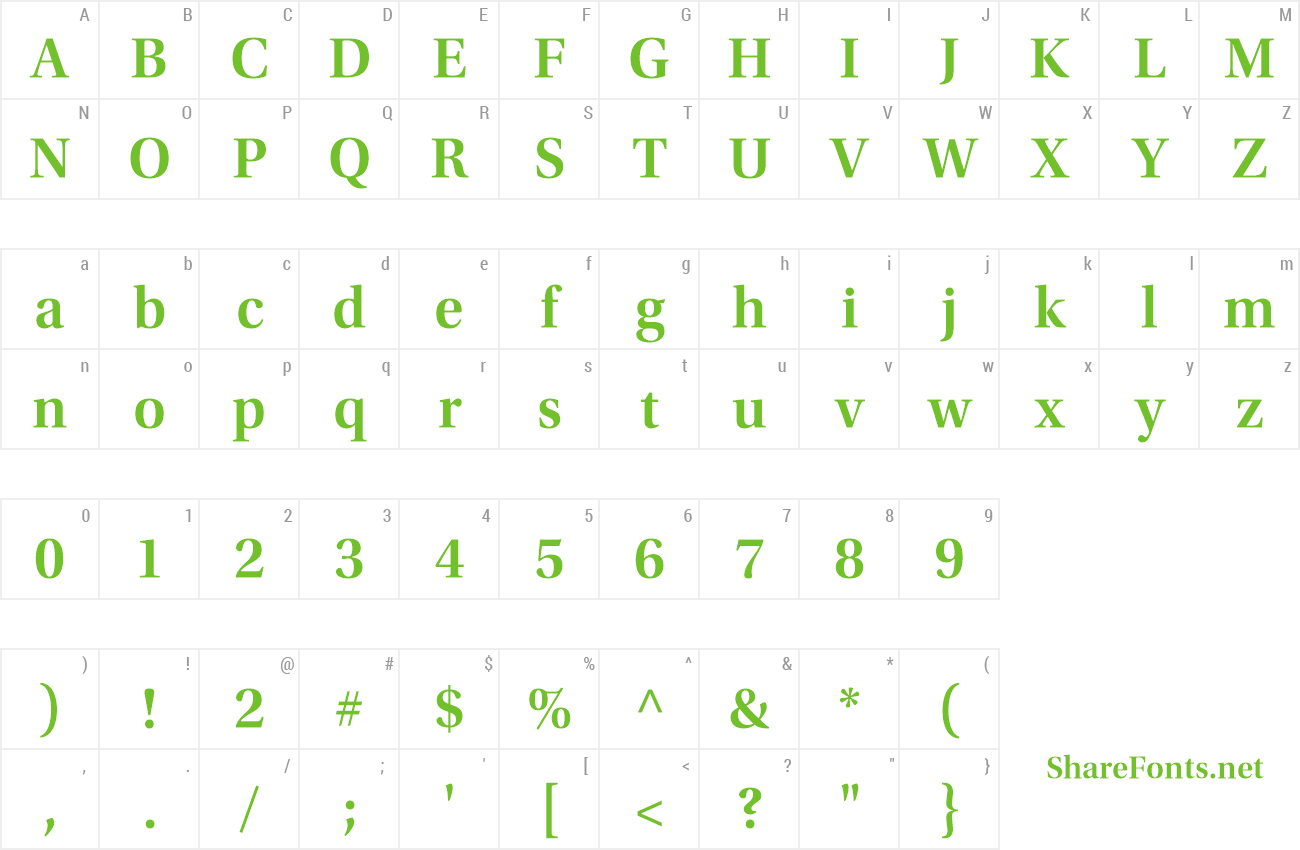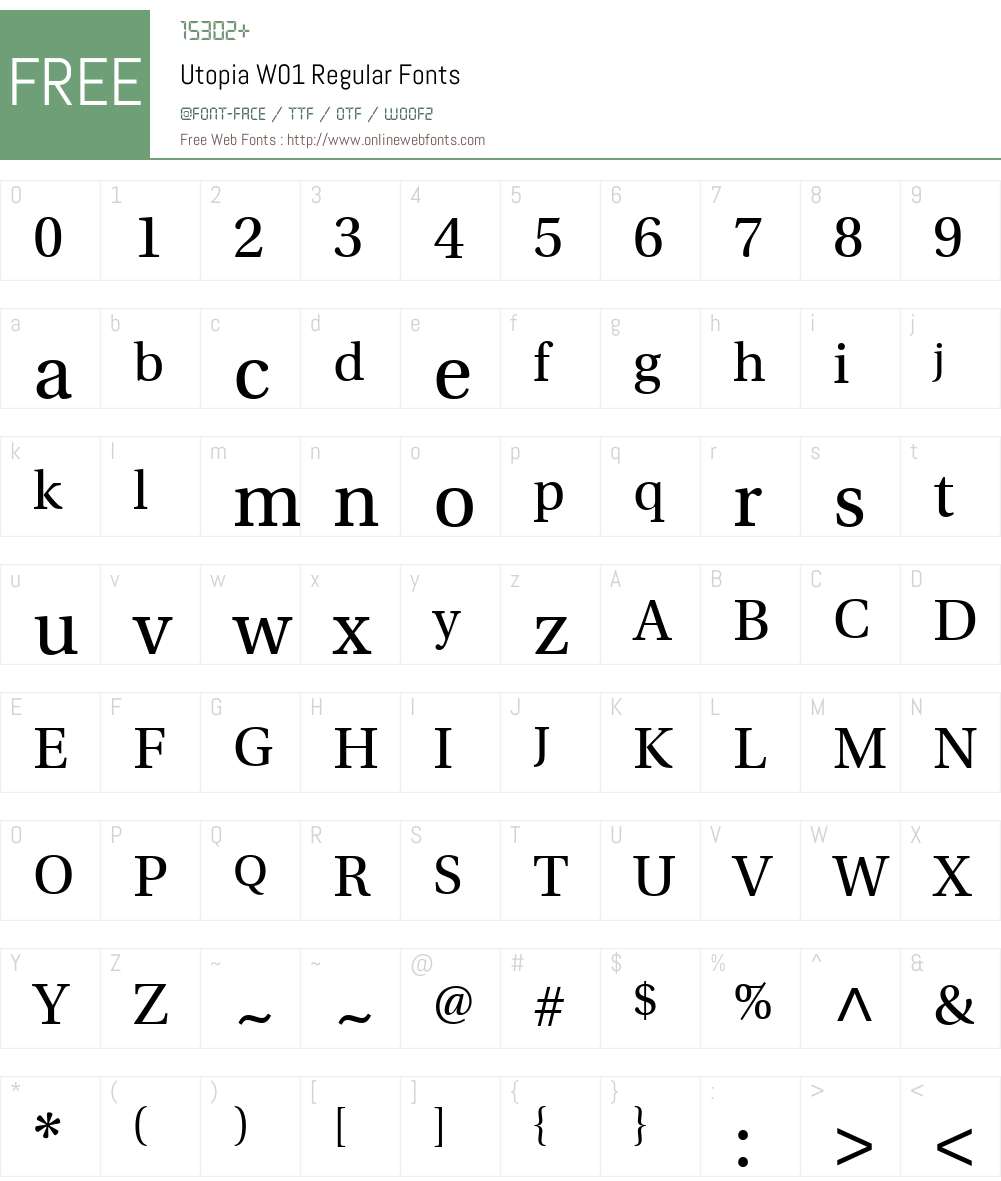
Utopia Font Adobe
The adobe originals program started in 1989 as an in house type foundry at adobe brought together to create original typefaces of exemplary design quality technical. The utopia font family is an adobe originals didone serif typeface that was designed by adobe systems employee robert slimbach in 1989. The utopia typeface combines the pronounced stroke contrast and the vertical.
Utopia is an adobe originals text face designed by robert slimbach in 1989. Download utopia regular font free in ttf format for windows and mac. Adobe font folio exceptionally priced font collections tailored for different customer needs.
Regarding the latter companys use of the utopia font under the name veracity in its products. Utopia is an adobe originals text face designed by robert slimbach in 1989. Utopia regular viewed 43998 times so far.
From 1995 to 1997 adobe filed several complaints against southern software inc. It combines the vertical stress and pronounced stroke contrast. In 1998 the united states district court for the northern district of california ruled in favor of adobe finding that southern software incs font software infringed adobes copyright.